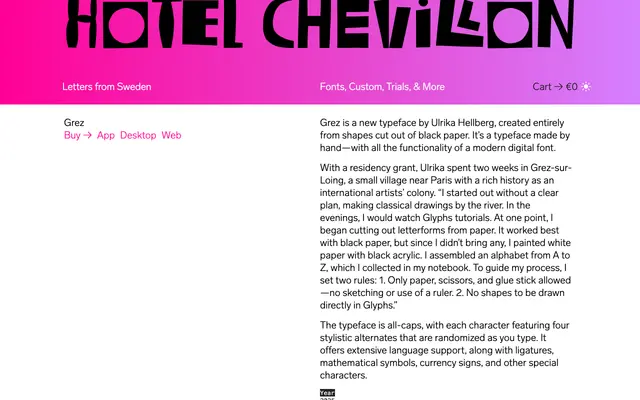
Grez specimen from Letters from Sweden
An all-caps display typeface by Ulrika Hellberg, constructed entirely from paper-cut shapes made during a two-week residency in Grez-sur-Loing, France.
Each character was cut from black-painted paper using only scissors and a glue stick, with no sketching or ruler allowed, then digitised into a fully functional font. To preserve the handmade variation, each letter ships with four stylistic alternates that randomise as you type. Despite its analogue origins, the family offers broad Latin language support alongside ligatures, mathematical symbols, currency signs and arrows.
All-caps display typeface constructed from paper-cut letterforms with no drawn sketches or digital construction; the resulting forms are organic and tactile, placing it firmly in the display category with a handcrafted subcategory.